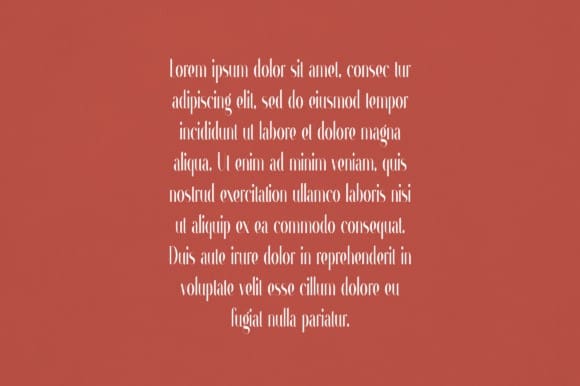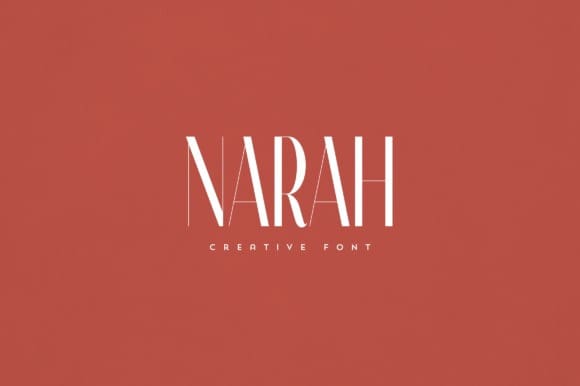
Narah Font
Narah Font is an elegant and versatile font that will make your typography truly unique! It will enchant every logo, branding, headline, or plain text!